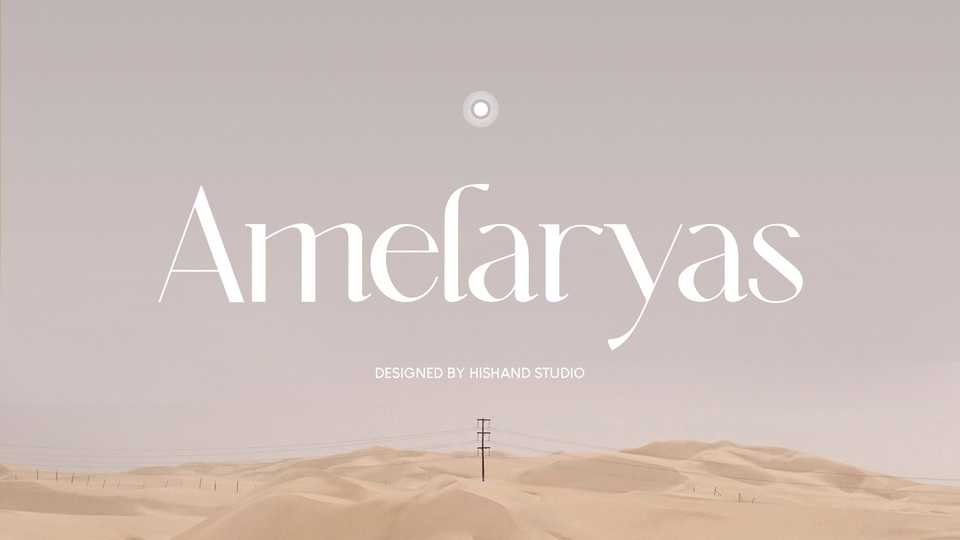
Download Amelaryas font, a beautiful serif typeface with an elegant and premium look. Amelaryas can be used for logos, branding, invitations, stationery, wedding designs, social media posts, and much more.